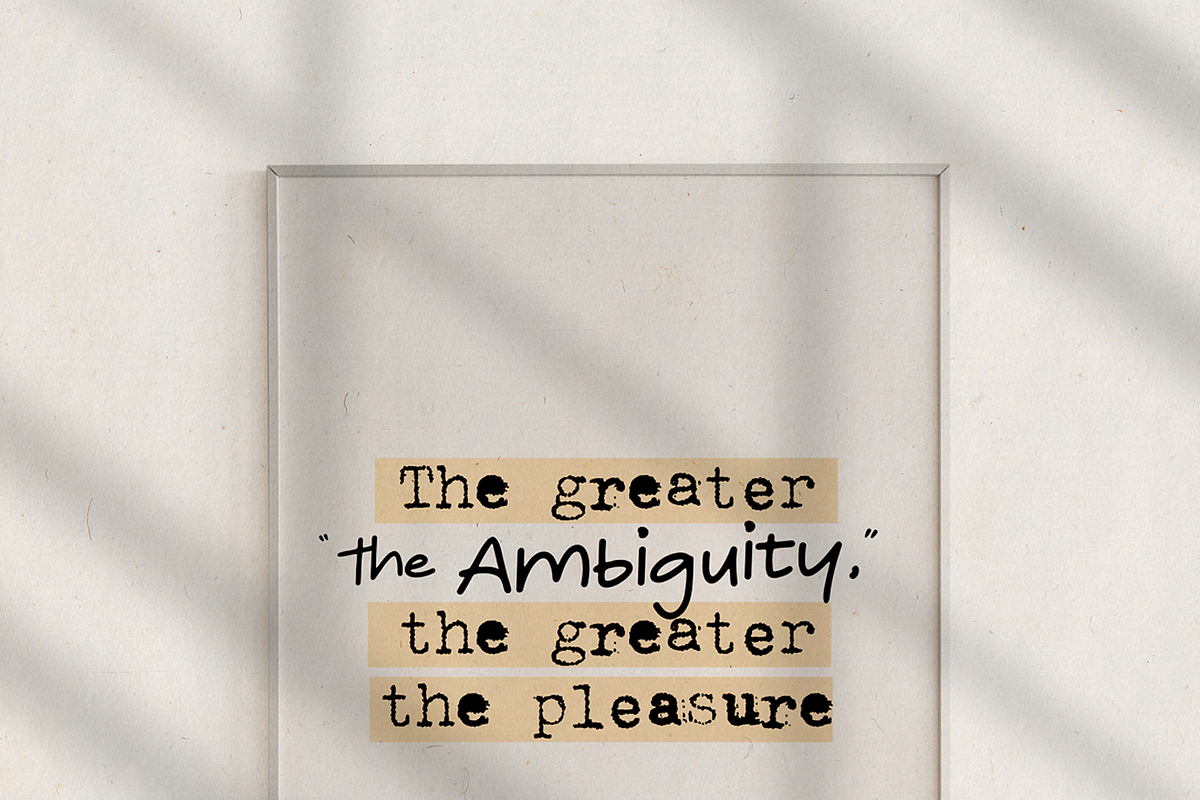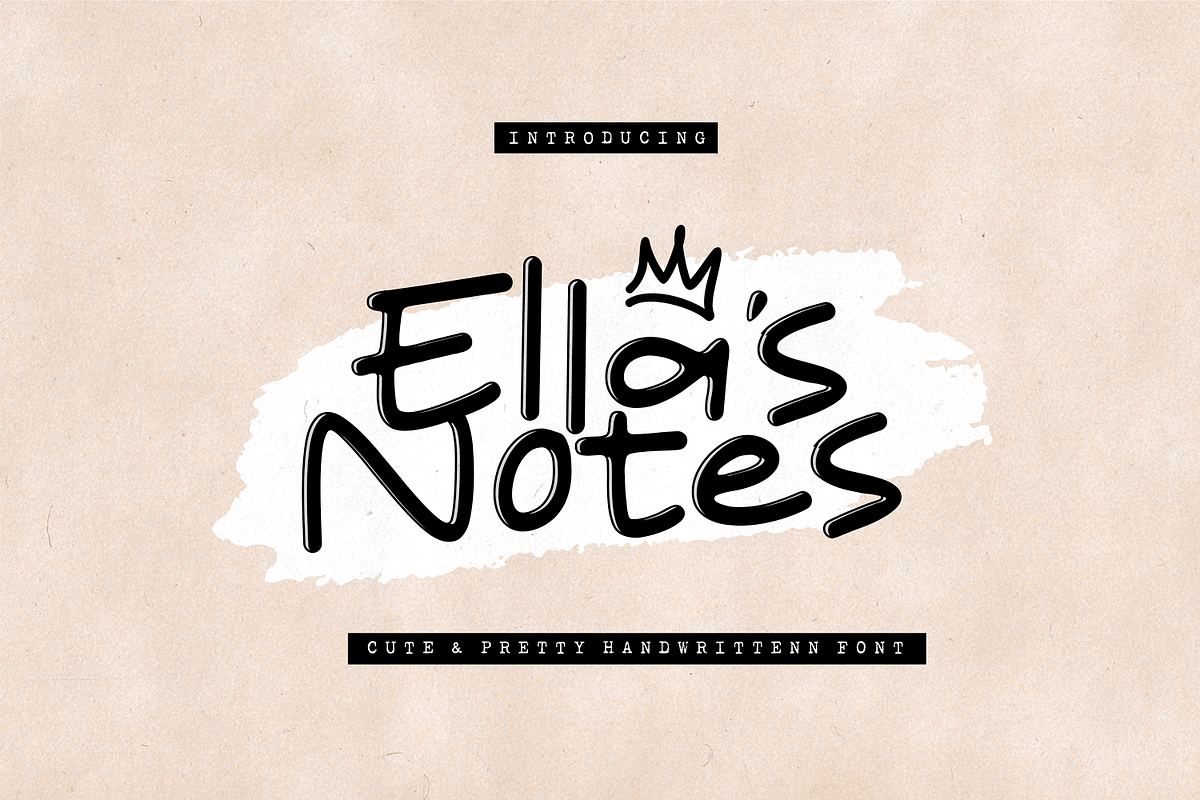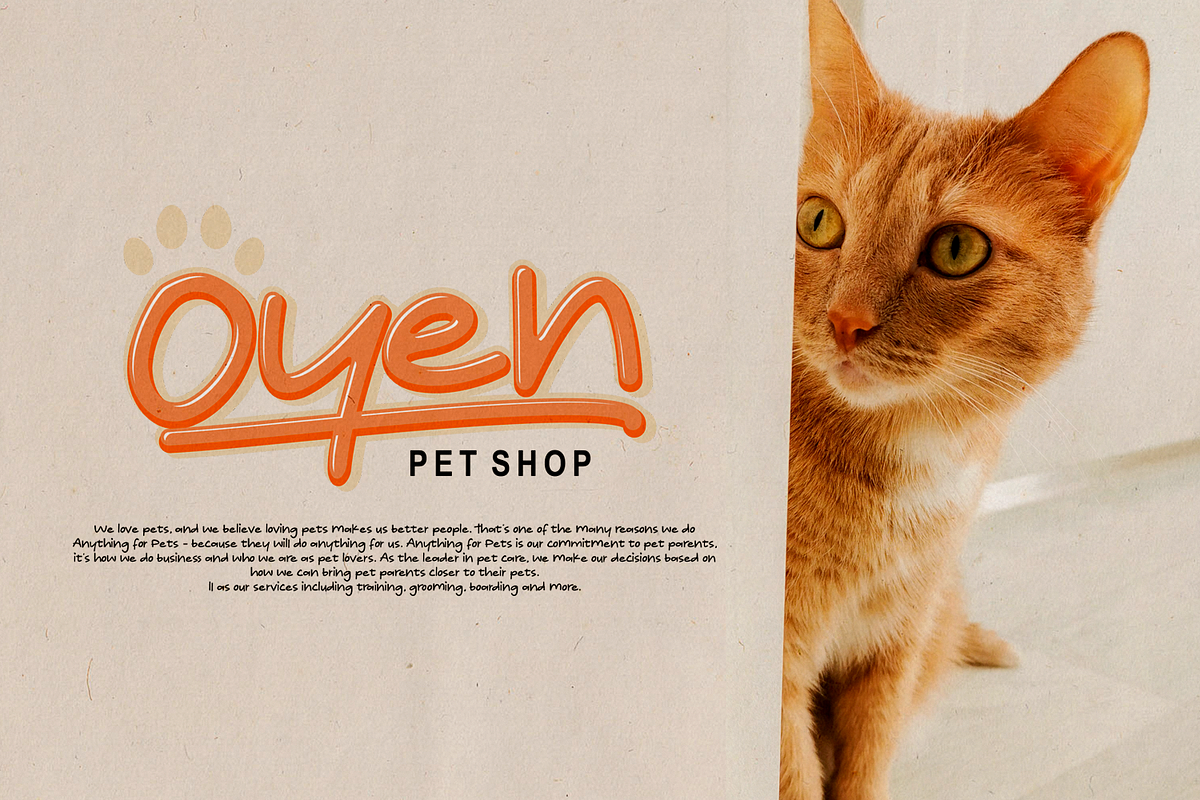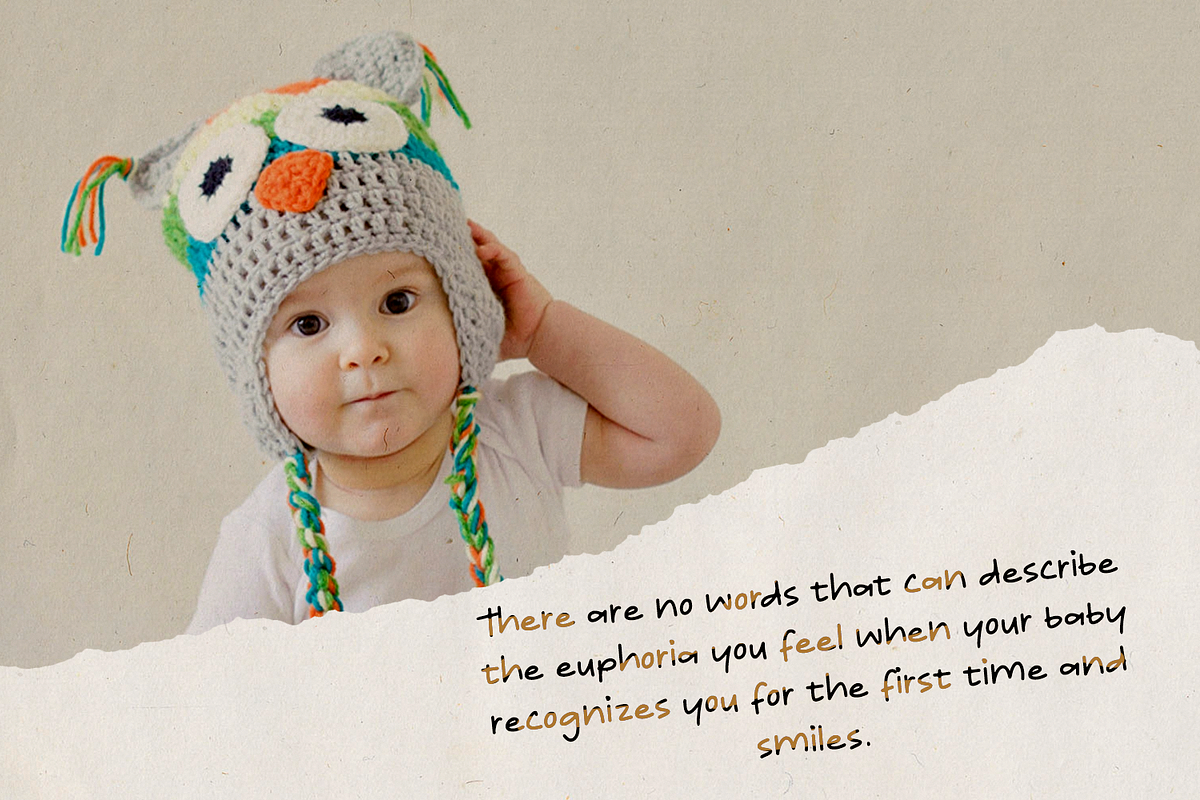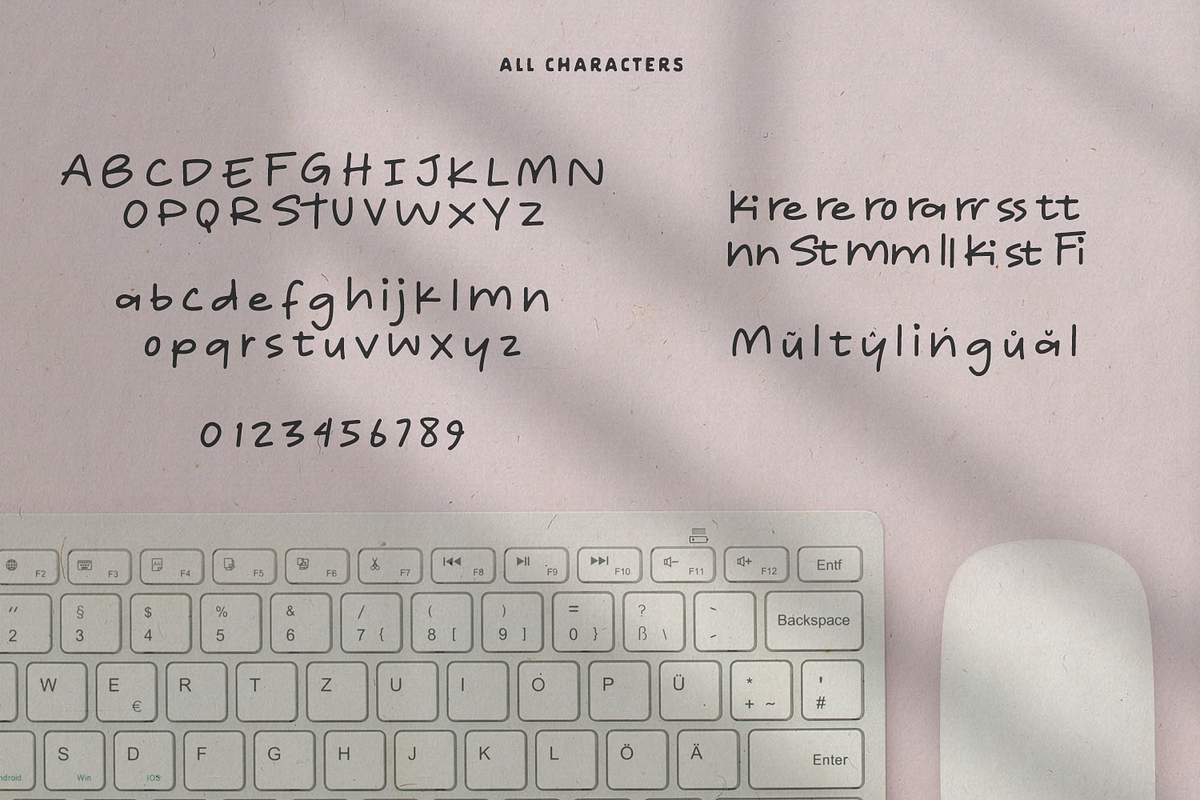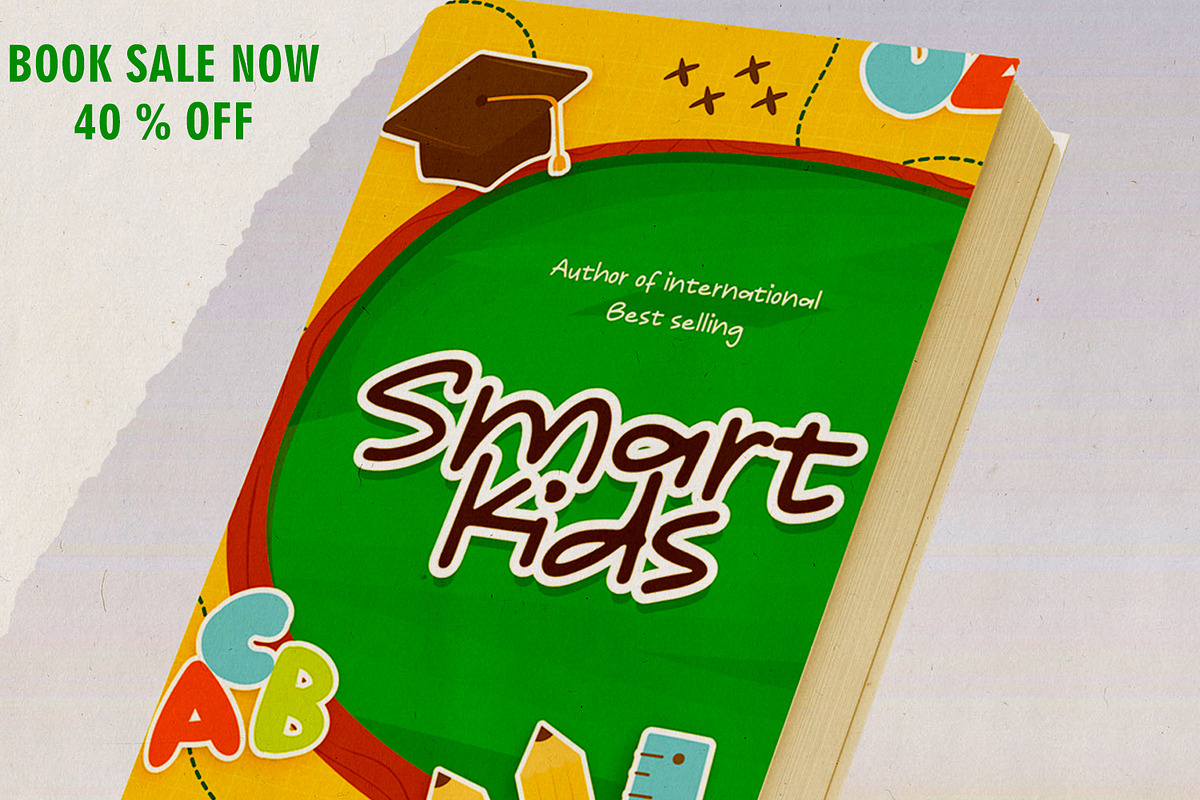
Ella's Notes
Ella's Notes is a playful and friendly font, perfect for adding a touch of fun to your designs. With its whimsical letterforms and bubbly personality, this font is perfect for creating inviting social media graphics, children’s books, or anything that needs a lighthearted touch. Bring your designs to life with this charming and approachable font.